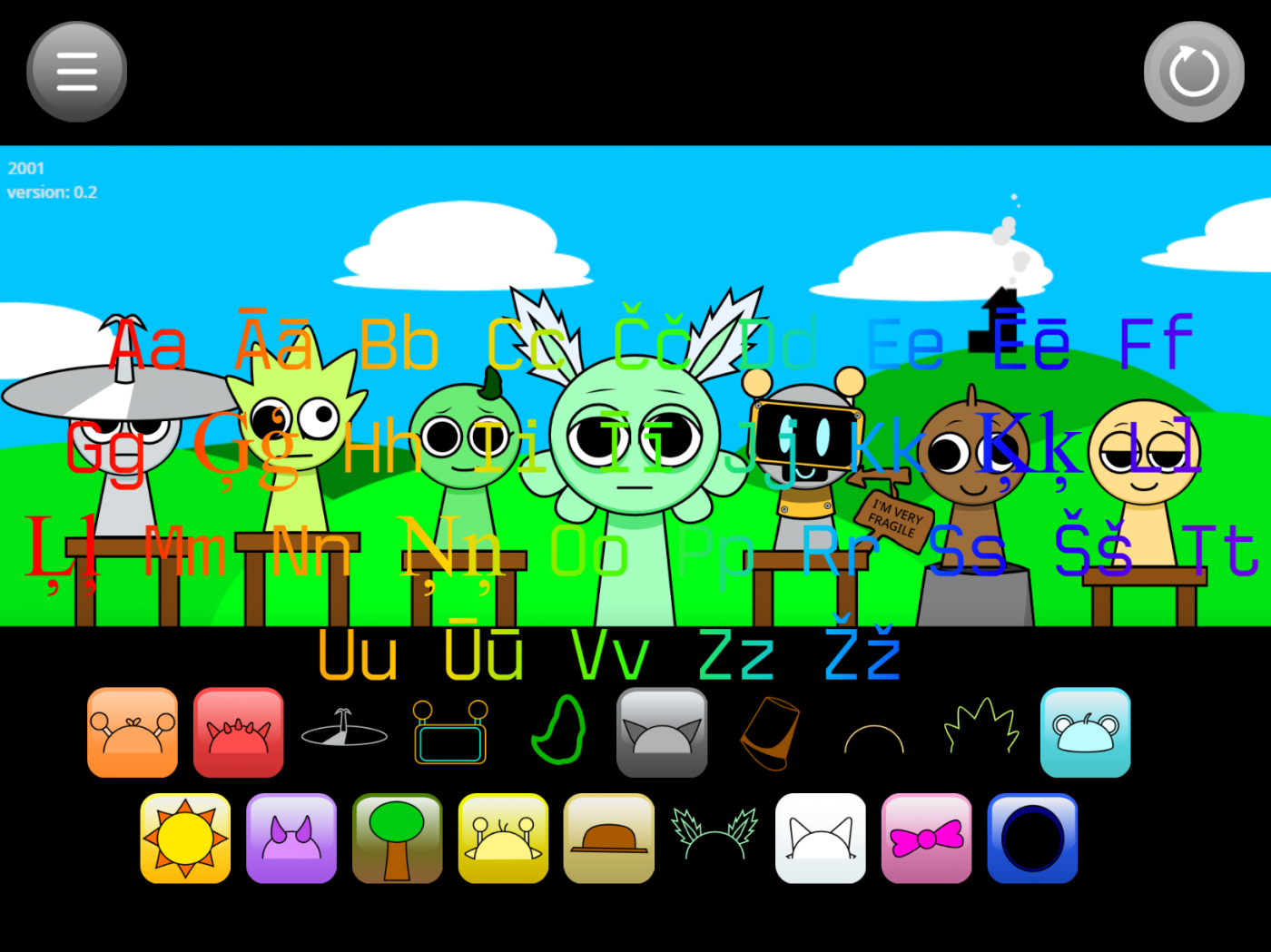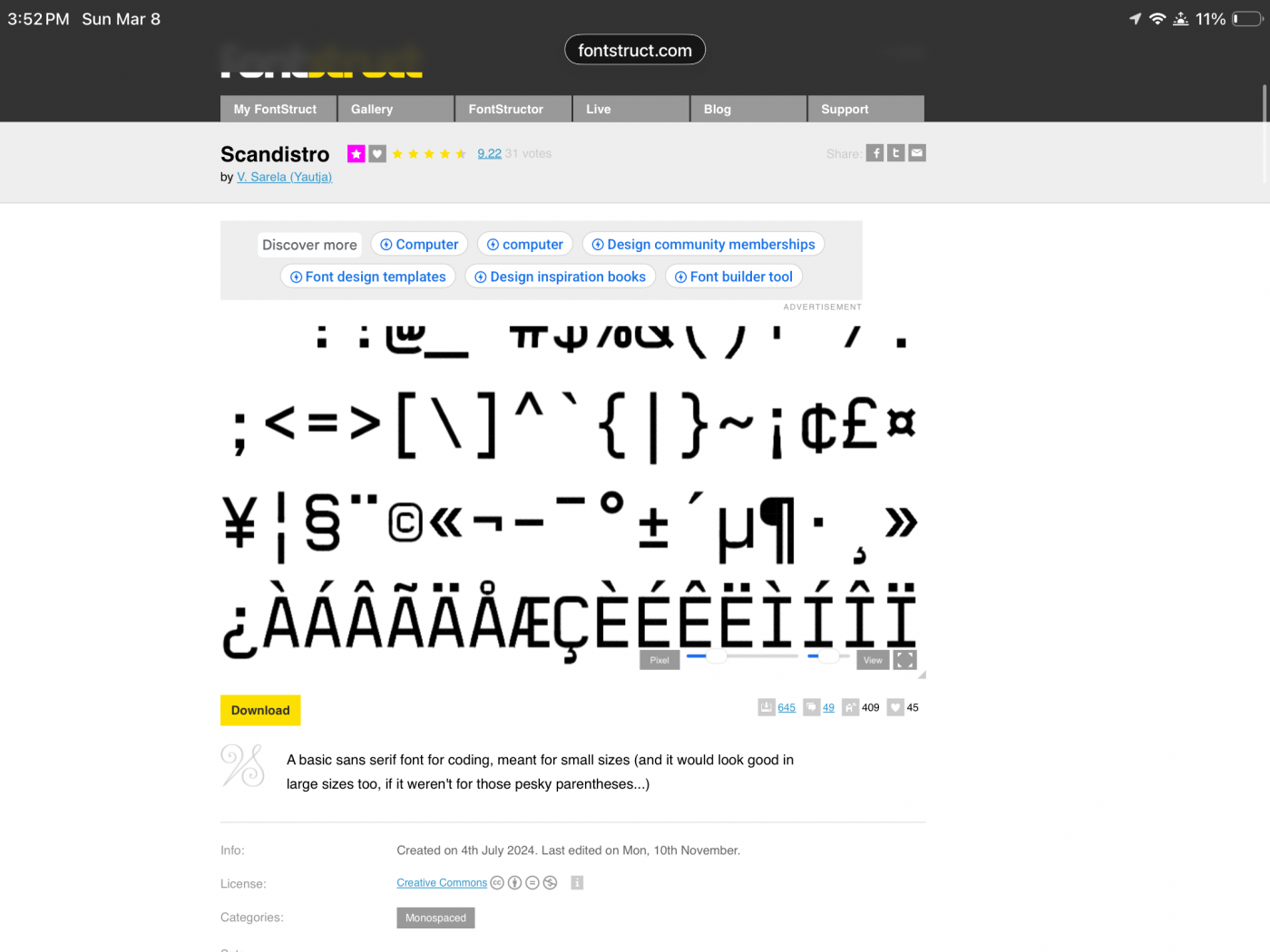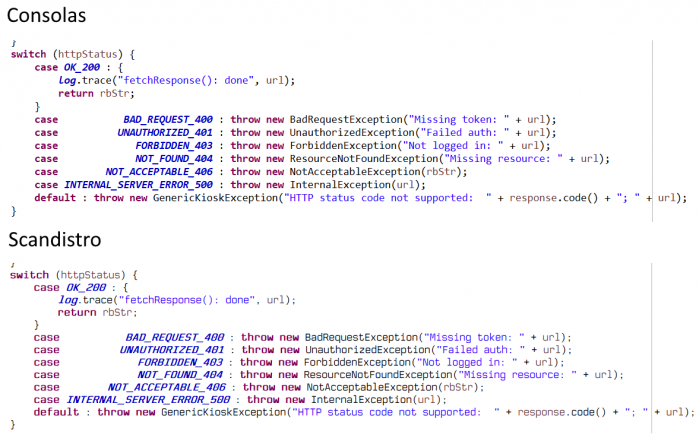
Congratulations! FontStruct Staff have deemed your FontStruction worthy of special mention. “Scandistro” is now a Top Pick.
*thinks* Can you bring over Cyrillic, IPA, Greek and Coptic?
@CollegeBoi584 Those are a bit outside my area of expertise, but I might try Cyrillic.
I added Cyrillic.
Hi! I can remake this font with Lithuanian, Welsh, Icelandic, Kazakh and other accents. 🙂👍
why dont you make [(][)] as a ultra-rounded [[][]]
I love monospaced fonts so much, this is wonderful
@JayAndrewBoy Thanks, but I'd rather not have different versions around. I can add some of those myself.
@digitalio-2 The parentheses were originally straight with curved corners, but they looked too close to the square brackets in small sizes.
Added support for Hungarian, Icelandic, Kazakh, Lithuanian, and Polish.
Hi! Any chance to implement letter specific to Croatian language?
Those are: šđčćž  and ŠĐČĆŽ
@H.Lo Added!
I would love to see this font support the Greek language.
Now that you added Croatian characters, I switched to your font in my favorite IDE (Eclipse), but then I noticed another tiny issue. When I try the same in Word, character widths are the same. Do you have any idea what causes this?
Ok, I found it! It's about bold characters. When I make them not bold, widths are fine.
And also the useful symbols (like the ≠, ≈, ≤, ≥, √, and so on) from at least the MacRoman character set.
This font looks pretty nice though.
What pixel size did you use?
@fluffcan If you mean the grid size, the characters are 6x9 grid squares (with 2:2 filters)
Very computer-y font
WAIT, CYRILLIC SCRIPT?????????????????
Hey, any chance you could add a Yen sign? Ya know, the currency?
It is already there.
My first fontstruction also has this Eszett letter.
can we add czech and slovak language
Making Latvian, can you specific the Latvian Language?
I'll try adding more letters.
Added support for Czech, Slovak, and Latvian.
can we work latin 1 supplement?
add ʼn and add latin extended b
Basic Latin: Done
Latin 1-Supplement: Done
Latin Extended-A: Done
Latin Extended-B: Undone
kra is missing
Super nice and legible font, but my suggestion is to finish Latin 1 supplement, aka adding the following characters: ªº¹²³½¼¾, and registered sign (®). Not saying its a bad font, though.
@KV67 Thanks for the comment. The smaller characters might be too tricky to do with FontStruct, but I'll consider it.
I haven't added kra since it's a very obscure letter that doesn't seem to be really used. Getting into Latin Extended-B might be a bit too much work.
Can you add support for Romanian, Azerbaijani, Serbian, Macedonian?